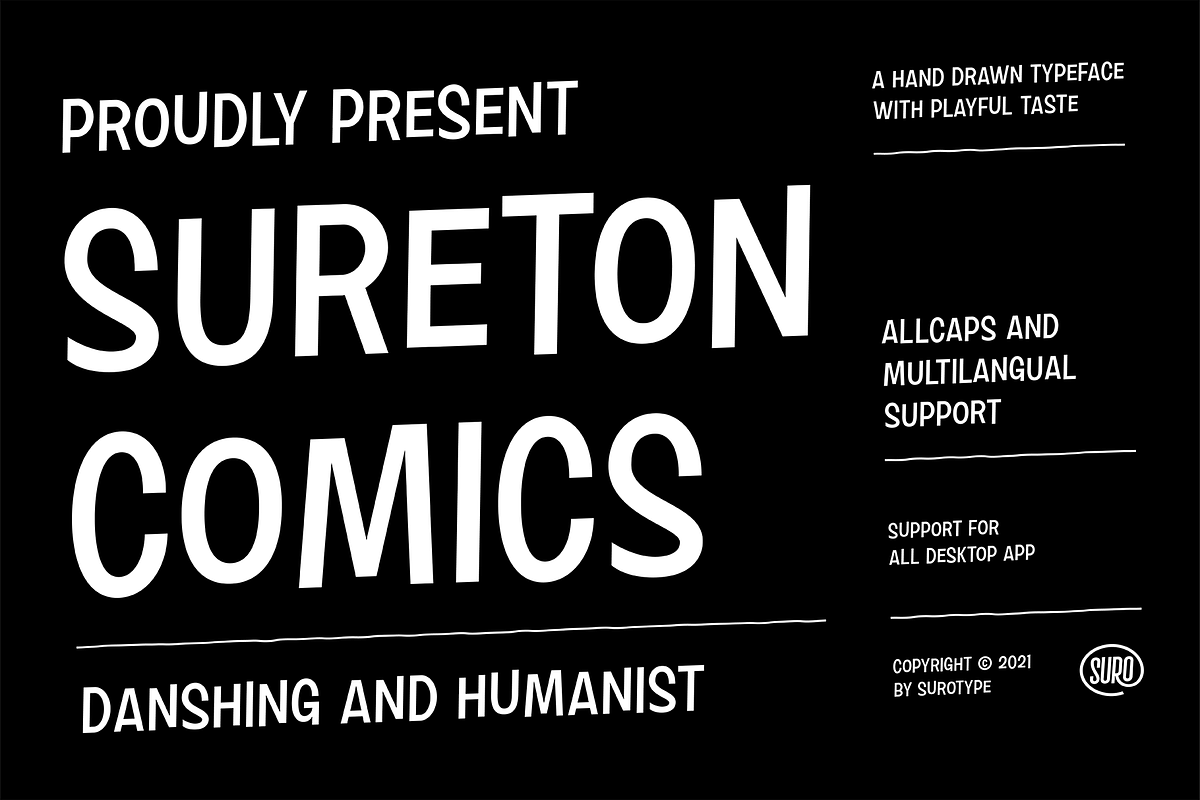
Please note that you must purchase this font for commercial use. You can download Sureton Comics Font for free, strictly for personal testing purposes only. Sureton Comics is a bold and playful comic-style font designed to add energy and fun to any design. With its chunky letterforms, rounded edges, and vibrant character, Sureton Comics Font Free Download is perfect for comic books, children’s designs, playful branding, posters, and social media content.
The font brings a lighthearted and whimsical feel, making it ideal for projects that need a youthful or cartoonish aesthetic. It includes uppercase and lowercase letters, numerals, punctuation, and multilingual support, giving you flexibility for various creative uses.
Whether you're creating comic strips, fun event flyers, or playful advertisements, Sureton Comics adds personality and a bit of humor to your typography.